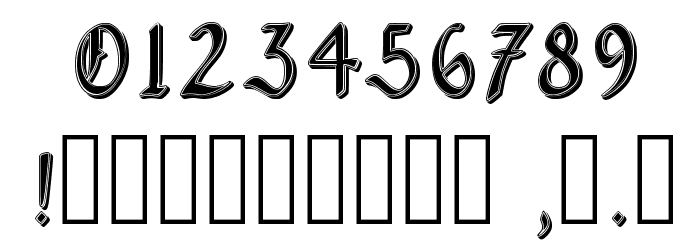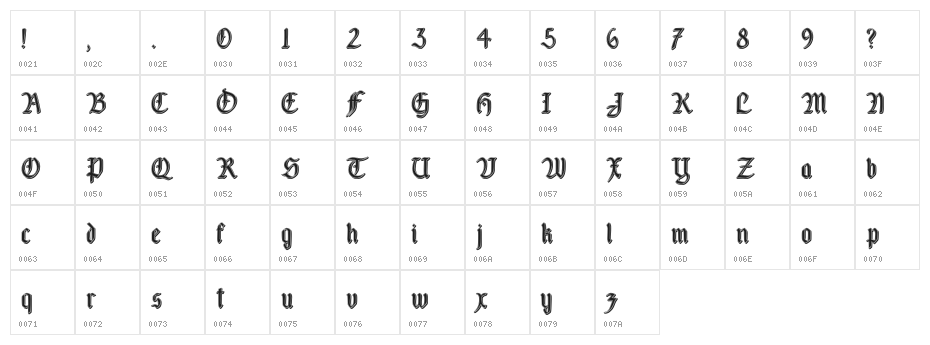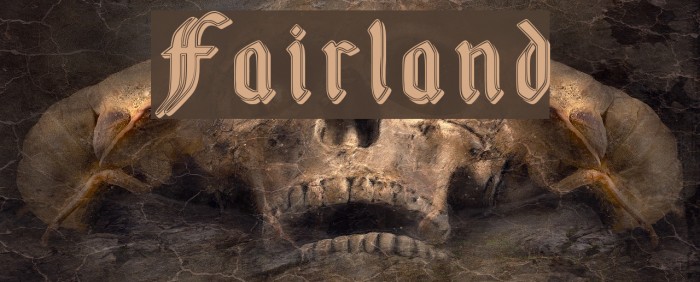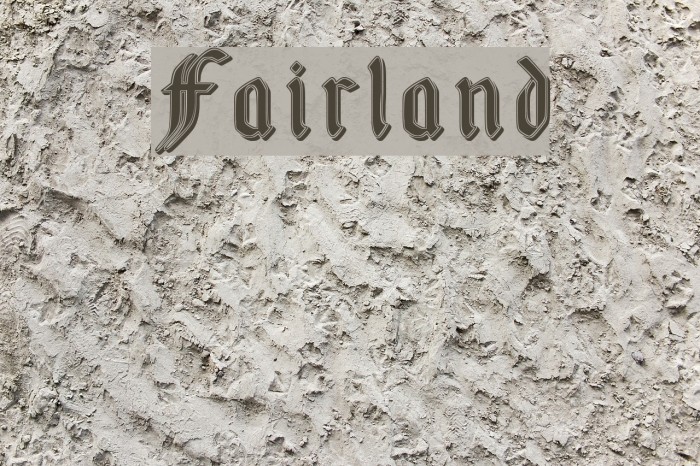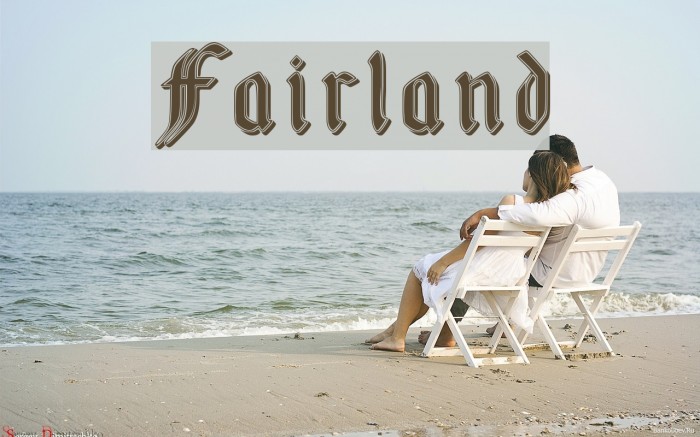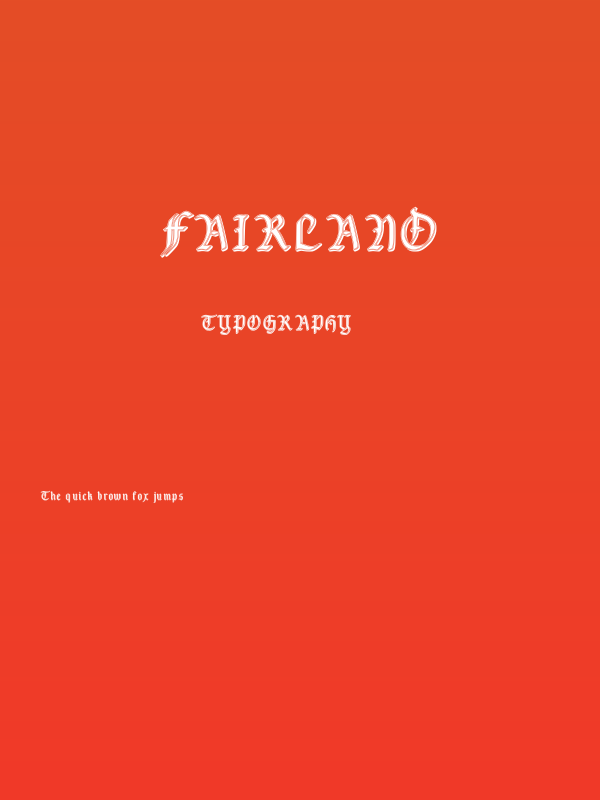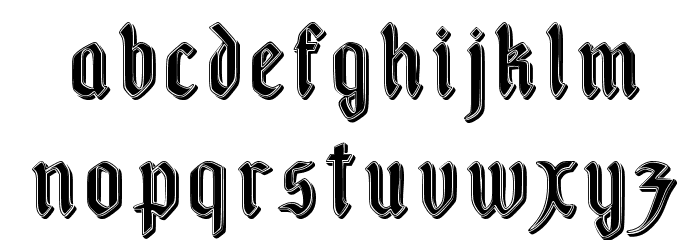
Fairland Font
Fairland Description
This font features a classic blackletter style, characterized by its intricate and ornate letterforms. The uppercase letters exhibit sharp, angular lines with decorative serifs, while the lowercase letters maintain a consistent flow with a slightly more rounded appearance. The numerals are bold and maintain the same decorative style, ensuring consistency across all characters. The special characters are designed to complement the overall aesthetic, adding a touch of elegance and historical flair. This font is perfect for projects that require a traditional or medieval touch, such as invitations, certificates, or branding for historical-themed events.